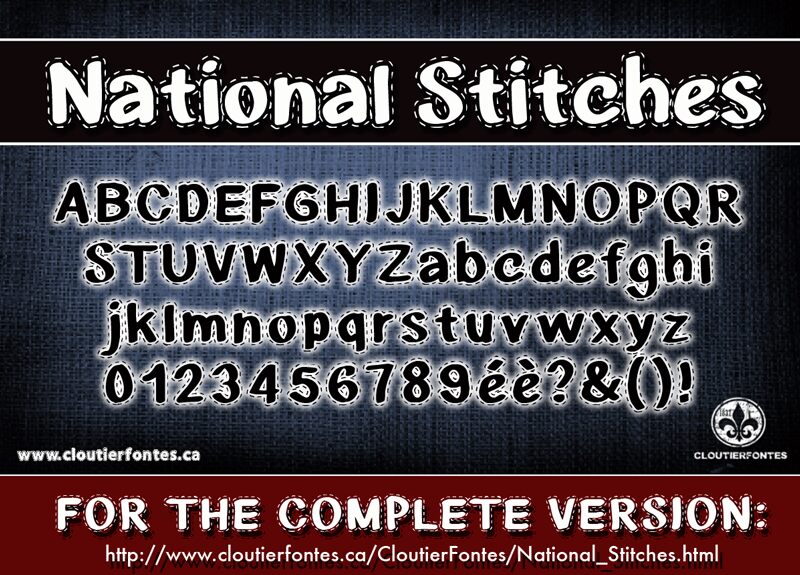
CF National Stitches by CloutierFontes is a free decorative display font built around broad, uneven capitals and a playful sewn edge. Broken stitch lines trace the outer shapes, with small gaps and loose turns that keep the lettering from looking mechanical. Solid interiors give the forms plenty of weight beneath that threadlike detail.
A craft shop, bakery brand, or children's label could use it as a lively product identity. It also suits event posters and merchandise connected with sewing, handmade goods, or playful fashion. The dashed edging can echo actual stitching, embroidered patches, or cut-paper illustration, so the letters become part of the project's decorative theme.
CF National Stitches
CloutierFontes
Steve Cloutier
CF National Stitches Regular is a font by CloutierFontes, designed by Steve Cloutier in 2013.